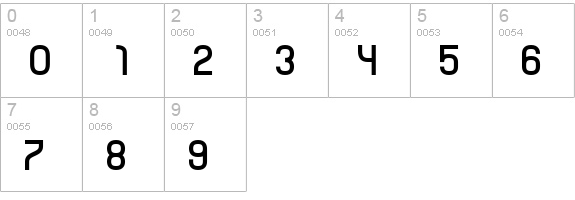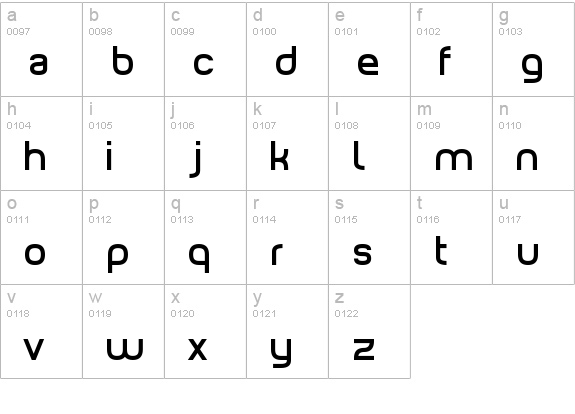
Planet Estyle Font Details
Planet Estyle is a stunning and versatile font that embodies the essence of modern design. With its sleek lines and contemporary aesthetic, this font is perfect for adding a touch of sophistication to any project. The unique design of Planet Estyle allows it to stand out from the crowd, making it an excellent choice for logos, branding, and advertising materials. Its clean and legible letterforms ensure that your message is clear and easily readable, while its elegant curves and sharp edges create a sense of modernity and professionalism. What sets Planet Estyle apart is not just its exceptional design, but also its accessibility. This font is freely available to download at FontsMarket.com, allowing designers, artists, and enthusiasts to explore its creative potential without any limitations. Whether you are a professional designer or a hobbyist, Planet Estyle is a valuable addition to your font library. With its extensive character set, Planet Estyle can be used in multiple languages, making it a versatile tool for international projects. Its various weights and styles provide endless opportunities for creative expression, allowing you to create eye-catching headings, captivating titles, and memorable designs. Whether you are working on a website, a poster, a brochure, or any other design project, Planet Estyle is the perfect choice to add a touch of elegance and style. Download this incredible font for free at FontsMarket.com and unleash your creativity today.